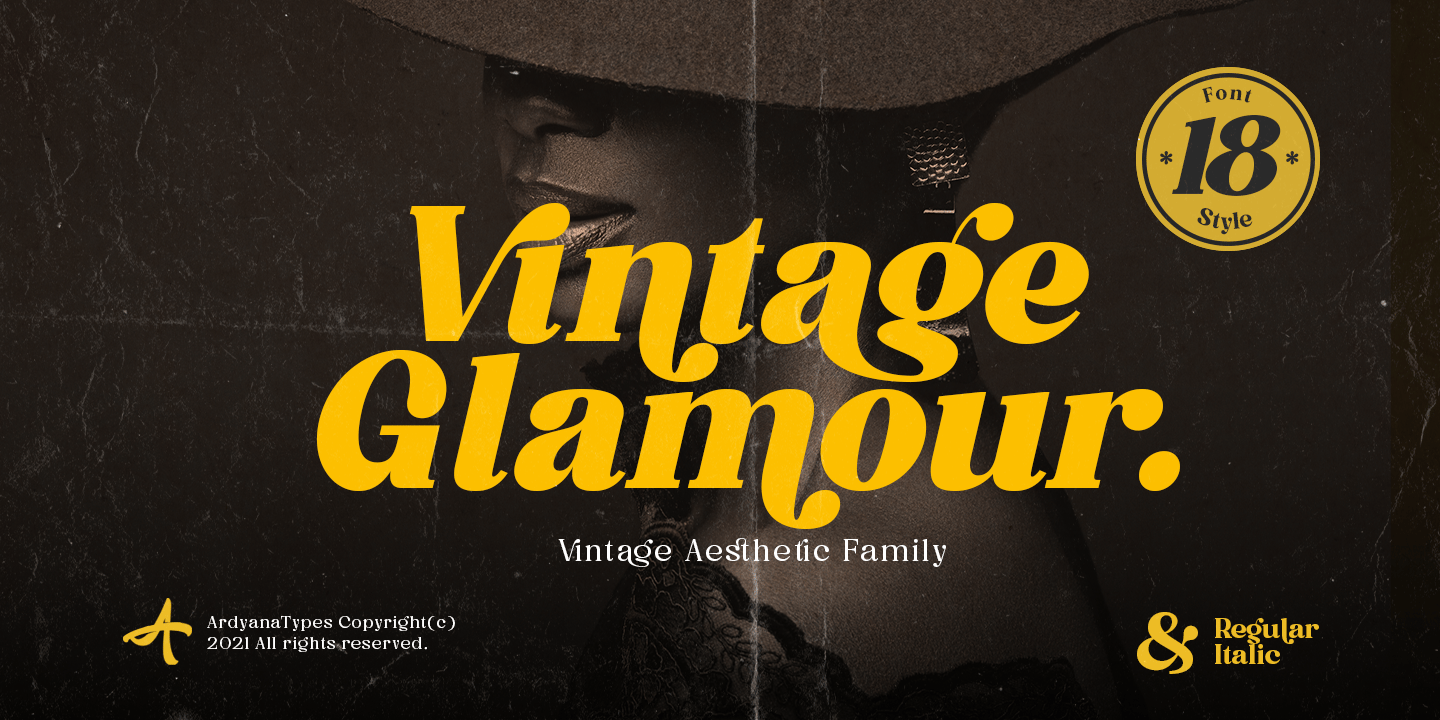
Vintage Glamour Font Free Download is an elegant, retro-inspired typeface that channels the timeless sophistication of classic Hollywood and Art Deco design. Perfect for logos, wedding invitations, packaging, posters, branding, and editorial layouts, this font adds a touch of luxury and nostalgia to any creative project. Vintage Glamour Font features refined letterforms with graceful curves, making it ideal for designs that need glamour and sophistication.
With Vintage Glamour Font Free Download, you’ll receive a complete set of uppercase, lowercase, numbers, and essential punctuation, offering versatility for both print and digital applications. Whether you’re creating luxury branding, event materials, product labels, or stylish social media graphics, this font ensures readability while adding a beautifully vintage aesthetic.
Enhance your creative work with Vintage Glamour Font Free Download. Its elegant, nostalgic style makes it the perfect choice for designs that aim to evoke classic beauty, sophistication, and timeless charm.